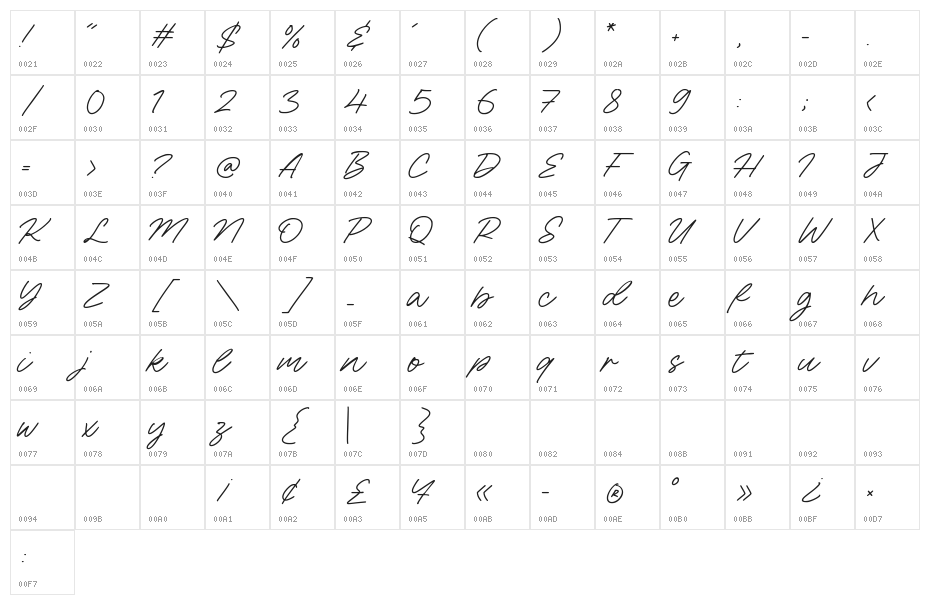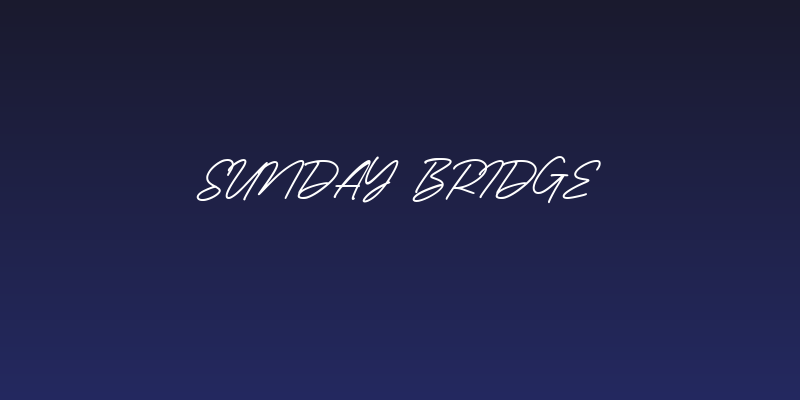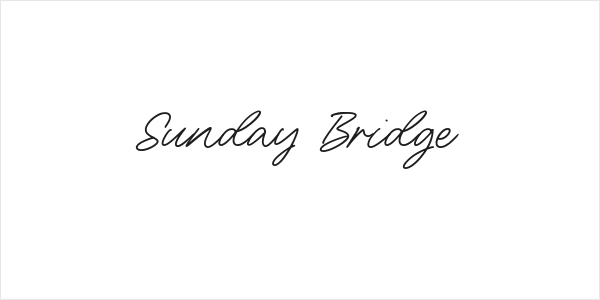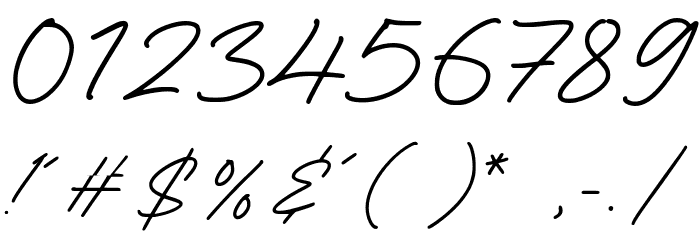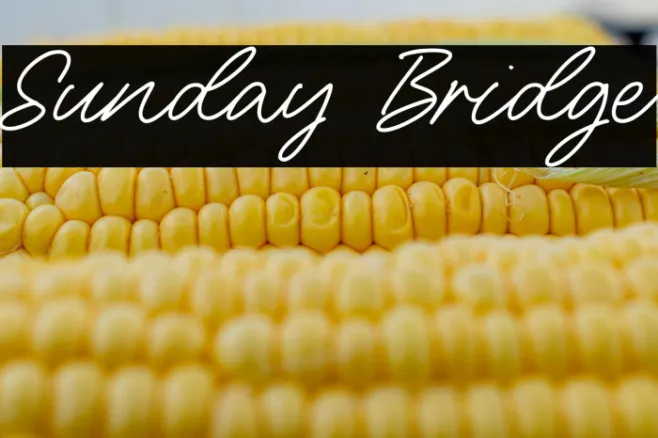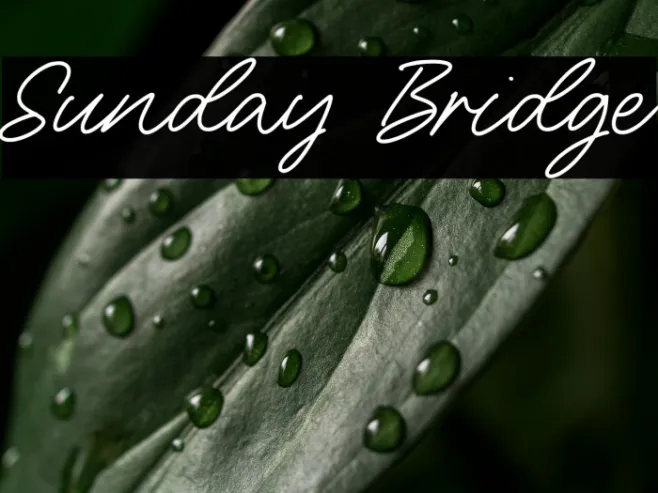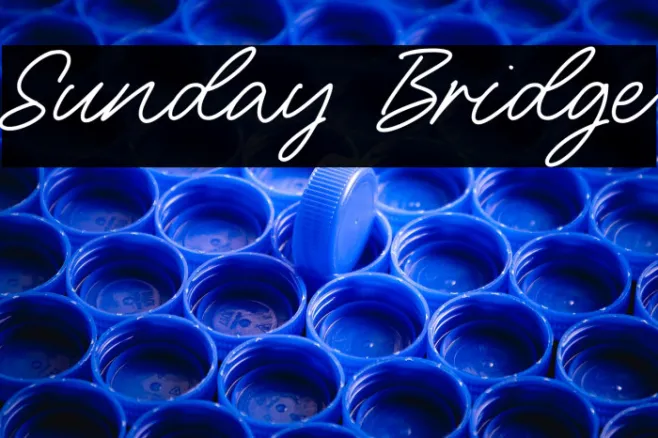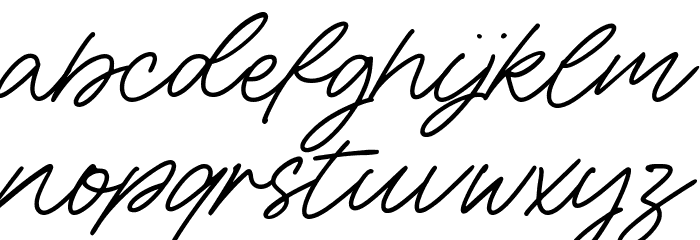
Sunday Bridge Font
Sunday Bridge Description
This font exudes a casual yet elegant handwritten style, characterized by its fluid and connected letterforms. The uppercase letters are slightly slanted, maintaining a consistent flow that mimics natural handwriting. The lowercase letters exhibit a smooth, cursive style, with gentle loops and curves that enhance its readability. The numerals are clear and distinct, maintaining the same handwritten aesthetic. Special characters are thoughtfully designed to match the overall style, ensuring cohesion across all text elements. This font's organic and personal touch makes it ideal for projects that require a human element.
| Overall Style | Casual, Elegant |
| Use Case | Logos, Invitations, Personal Correspondence |
| Proposed Projects | Ideal for wedding invitations, personal letters, greeting cards, and branding materials that require a personal touch. |